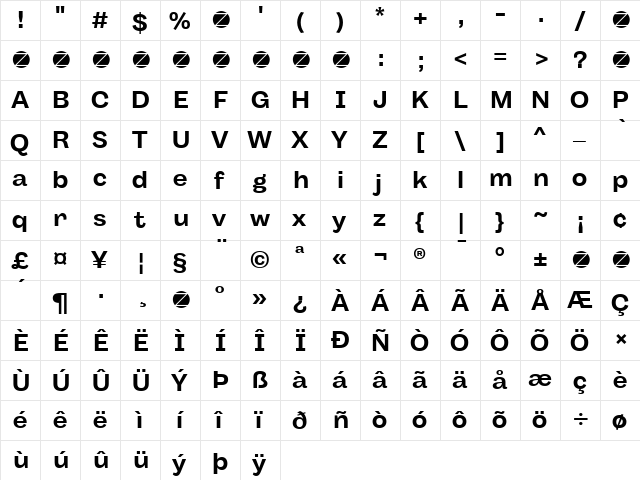
Body Grotesque Fit Trial Bold
| Foundry | Studio Kmzero & Zetafonts |
| Designer | Cosimo Lorenzo Pancini |
Design Context for Body Grotesque Fit Trial Typeface
Body Grotesque Fit Trial is a composed and adaptable typeface that performs quietly and consistently across a wide range of design contexts. The heavy weight commands attention and anchors typographic hierarchies.